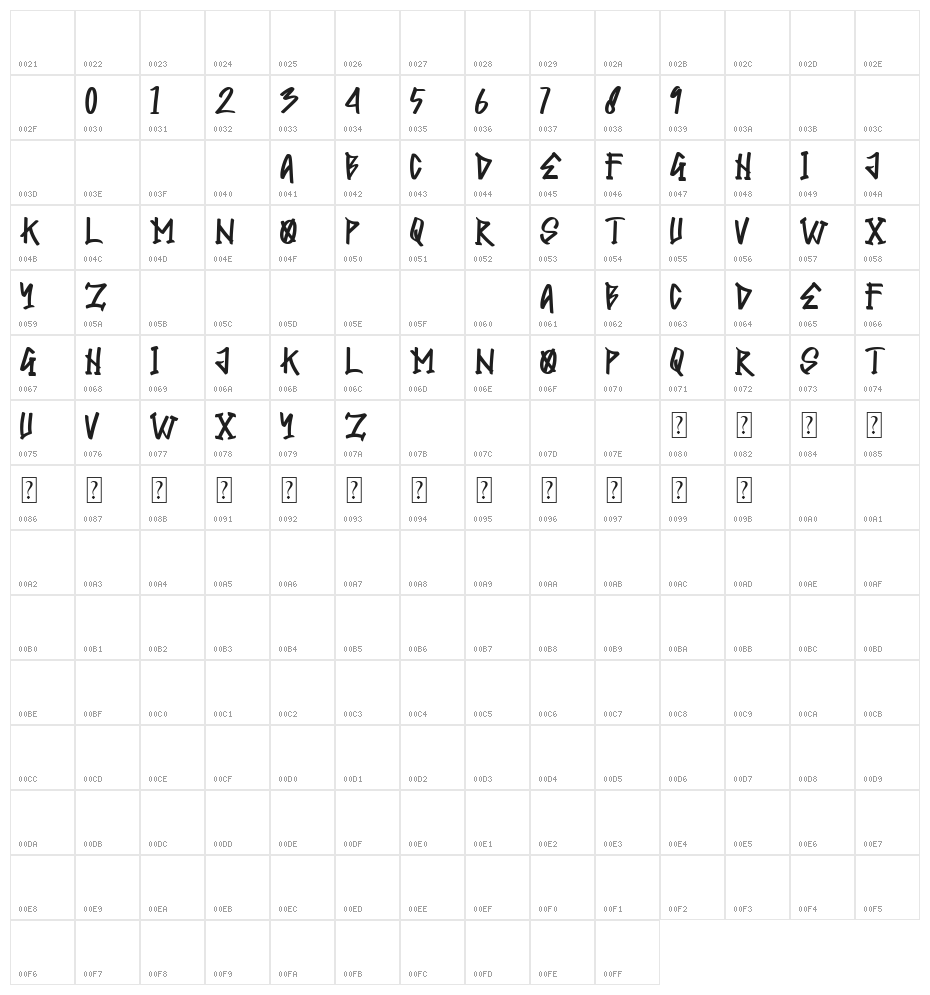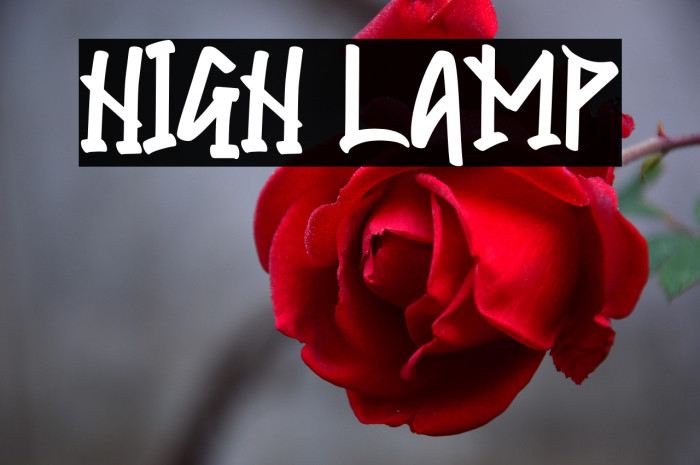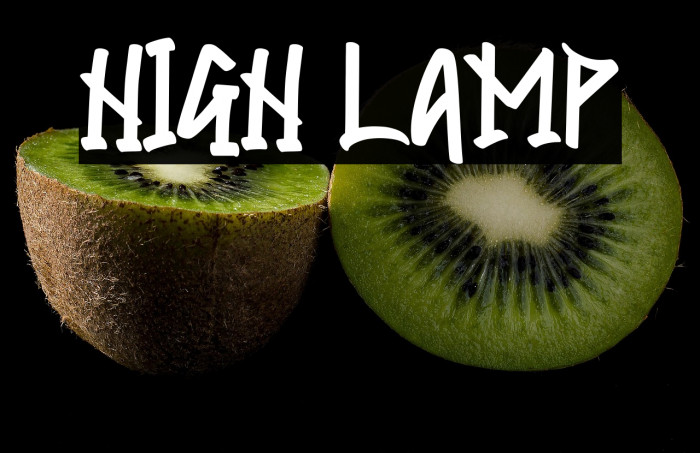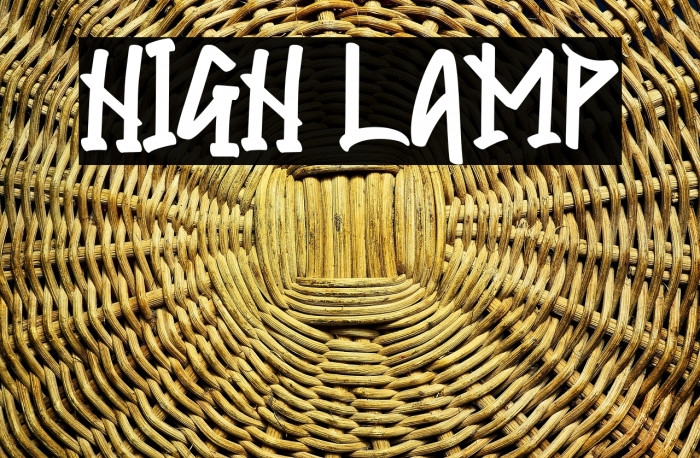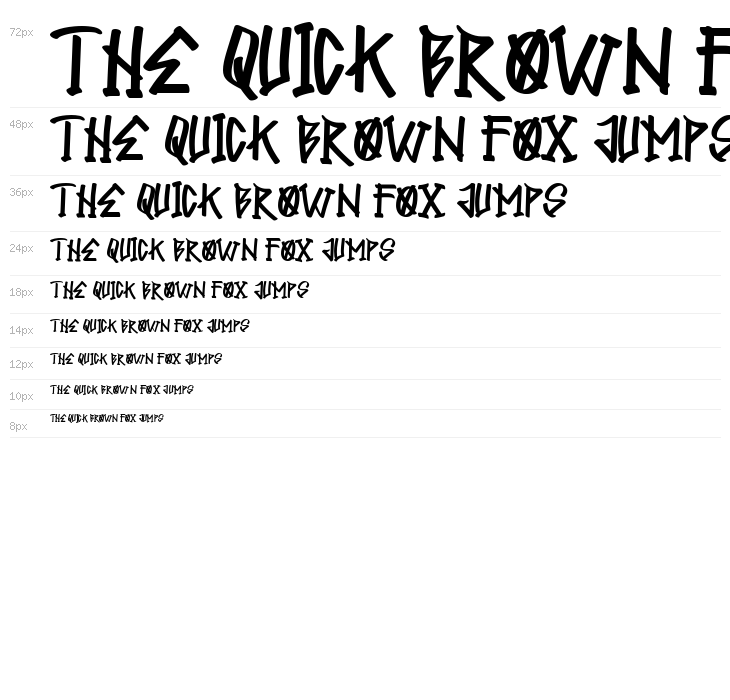
HIGH LAMP Font
HIGH LAMP Description
This font features a bold and dynamic style with a strong graffiti influence. The characters are designed with sharp angles and a sense of movement, giving them an energetic and rebellious feel. The uppercase and lowercase letters maintain a consistent style, with some characters incorporating unique flourishes that enhance their visual appeal. The numbers and special characters are equally bold, ensuring a cohesive look across all elements. This font's striking appearance makes it ideal for projects that require a bold statement.
| Overall Style | Modern, Urban |
| Proposed Projects | Perfect for street art designs, urban-themed posters, edgy branding, and music album covers. |